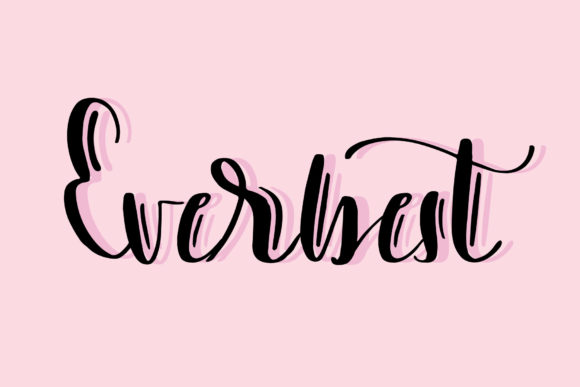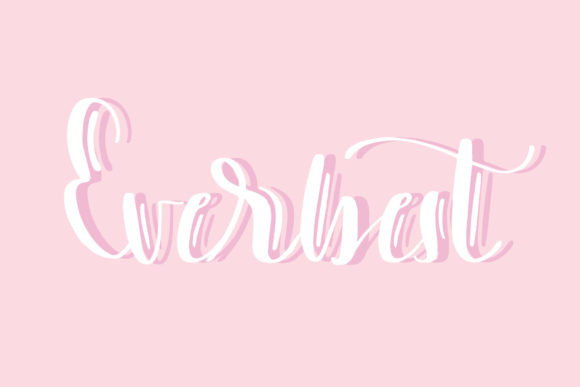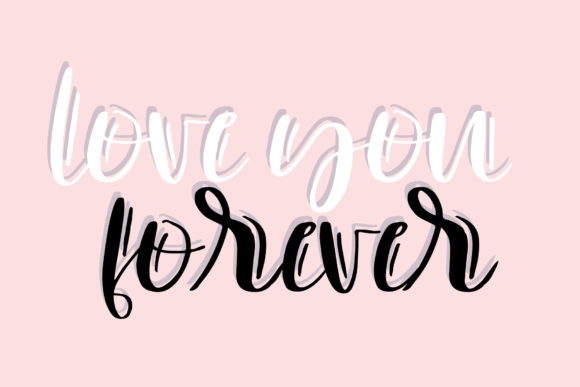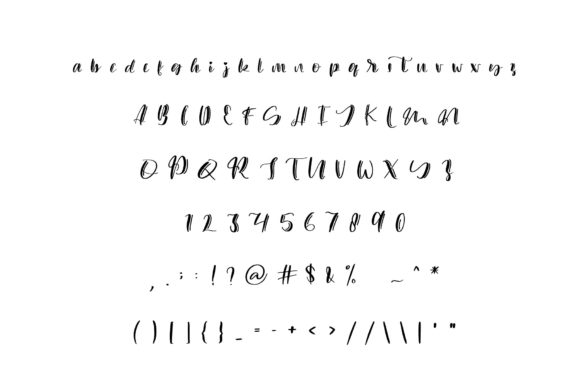
HomeScript FontsEverbest Font Script Fonts Everbest Font FacebookXPinterestWhatsApp Everbest Font Poster 2 Everbest Font Poster 3 Everbest Font Poster 4 About Everbest Font Everbest is a fun and original script font. It’s perfect for any creative project! DOWNLOAD NOW People also explored Bisqootte Font Valerie Font Artis Font Enyo Slab Font Badger Delight Font Pink Summer Font Tiny Love Duo Font Christmas Memory Font Lauma Light Font 357 0 TagsEverbest Font Previous articleKlamber Satisfaction FontNext articleRuang Jenuh Font LEAVE A REPLY Cancel reply Comment: Please enter your comment! Name:* Please enter your name here Email:* You have entered an incorrect email address! Please enter your email address here Website: Save my name, email, and website in this browser for the next time I comment. Personal Use Free Underwood Champion Personal Use Free Read more about this font Electroharmonix Personal Use Free Read more about this font Elliane Personal Use Free Read more about this font Whitelight Personal Use Free Read more about this font BLOG Free vs Paid Fonts: Why Investing in Premium Fonts Is Worth It Free vs Paid Fonts: Why Premium Fonts Are Worth It in 2025 The debate of free vs paid fonts continues in the design world. While... Transform Your Website: Elevate Your Typography with 7 Best Web Font Generators Modern Sans-Serif Fonts That Brands Love in 2025 The 10 Best Handwriting Fonts to Add Personality to Your Designs